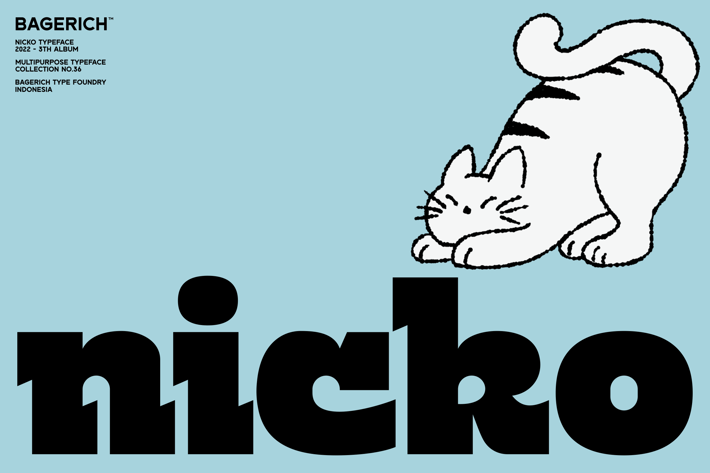
Nicko Typeface
Nicko is a bold and friendly typeface. Nicko has a unique style with stylistic, alternates, ligatures and supports multilingual languages.
Create unique & beautiful logotype, use it as an elegant solution for your next magazine layout, or choose Nicko for any graphics that require a sleek look with a elegant flair.